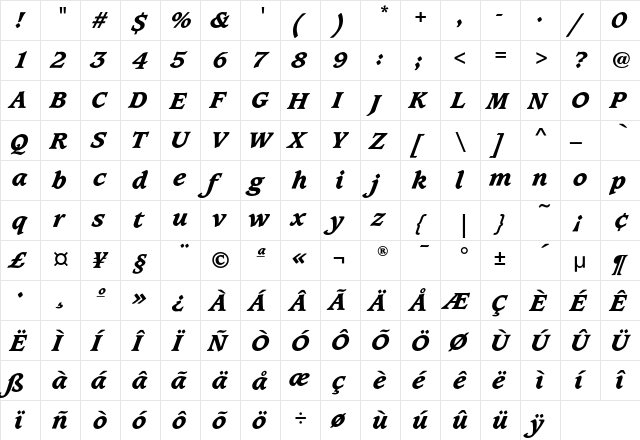
CaxtonEF ExtraBoldItalic
Design Context for CaxtonEF Typeface
CaxtonEF is a composed and adaptable typeface that performs quietly and consistently across a wide range of design contexts. Its italic angle brings a sense of urgency and motion to the letterforms. The heavy weight commands attention and anchors typographic hierarchies.
Pro Tip: Try CaxtonEF for annotation and caption copy alongside an upright companion — the contrast in angle creates a dynamic but ordered typographic system.